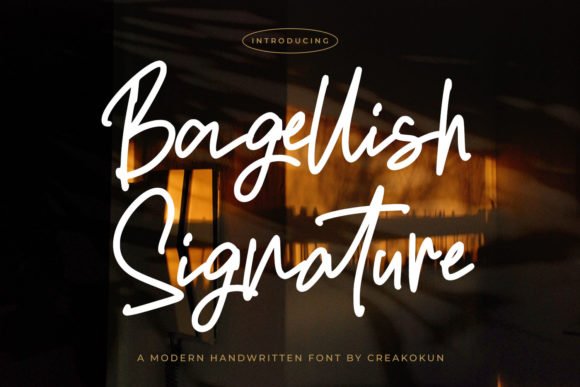
Introduction to Bagellish Signature Font
Bagellish Signature is a modern and quirky looking handwriting font.
Fall in love with its relaxed style and use it to create great cards, stationary art, social media posts, and much more This font is PUA encoded which means you can access all glyphs and swashes with ease.